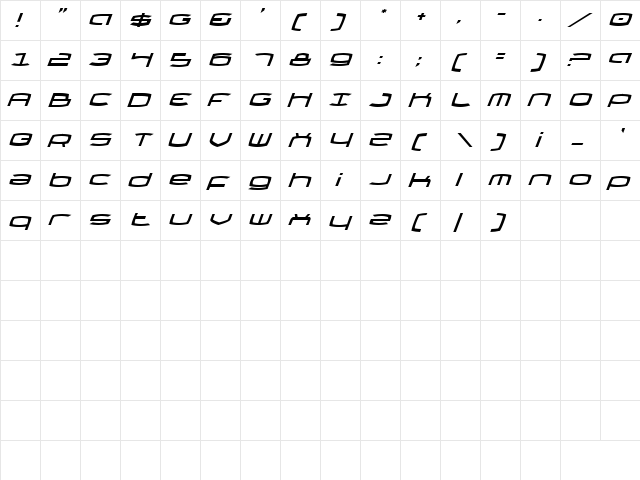
Thundergod Itliac Italic
Design Context for Thundergod Itliac Typeface
Thundergod Itliac takes a measured approach to typography — its balanced proportions and neutral character make it a reliable workhorse for both digital and print work. The slanted form adds forward momentum and visual energy.
Pro Tip: Try Thundergod Itliac for annotation and caption copy alongside an upright companion — the contrast in angle creates a dynamic but ordered typographic system.